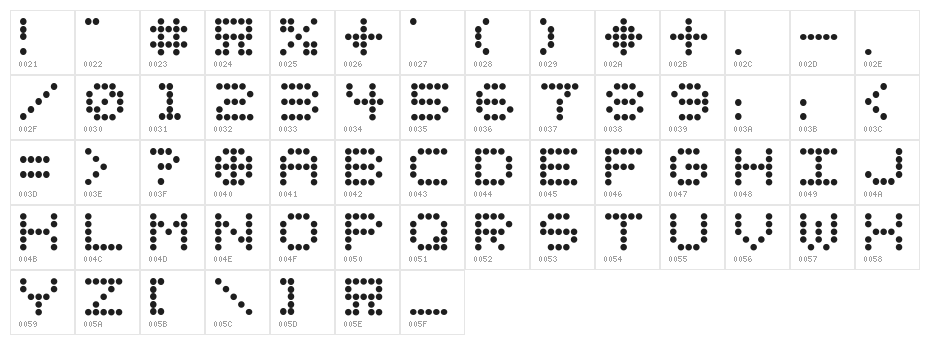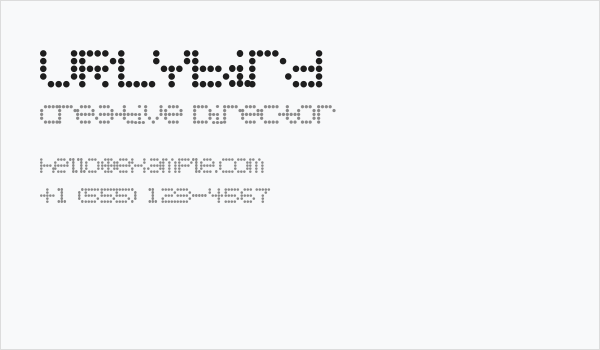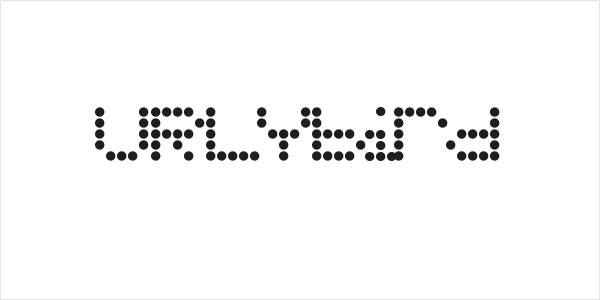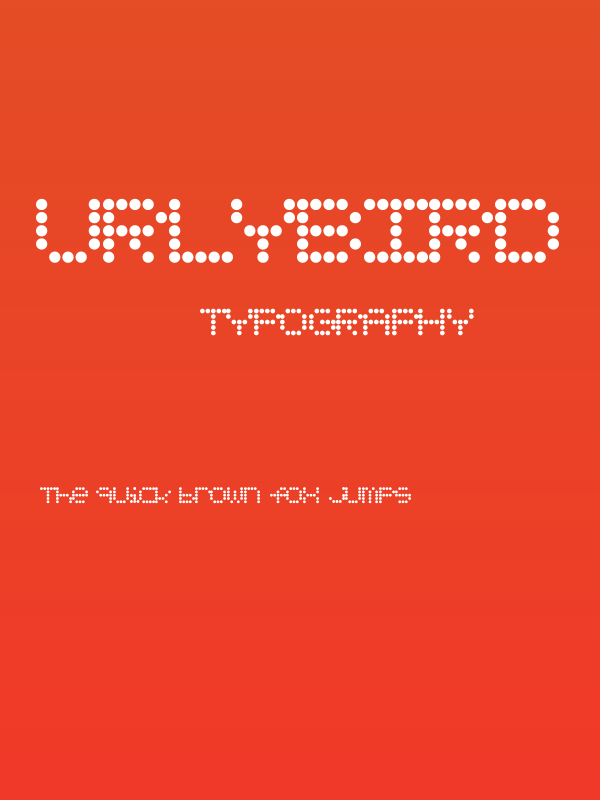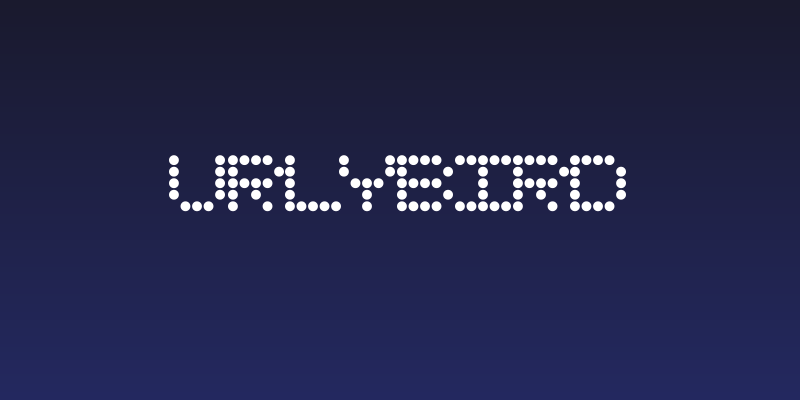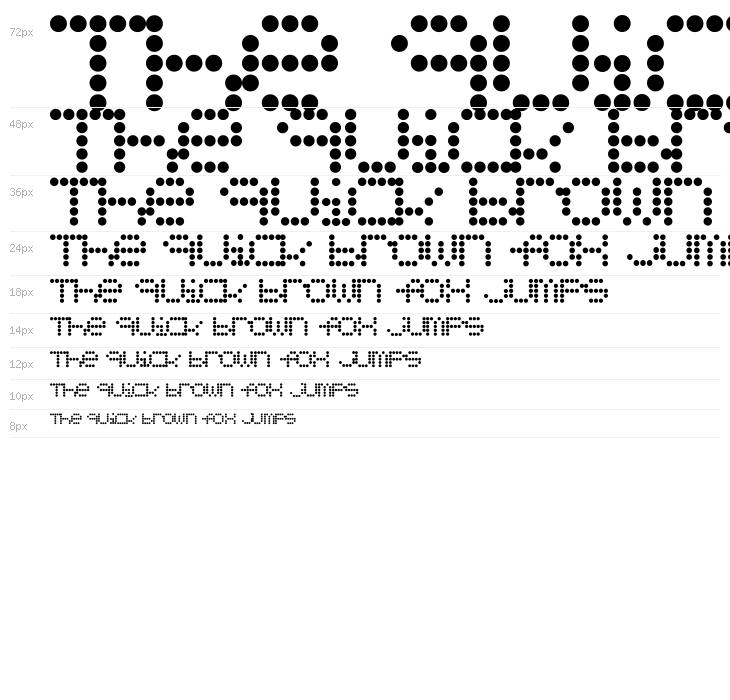
URLYbird Font
URLYbird Description
This font is a unique and creative design composed entirely of dots arranged to form each character. The dots are evenly spaced, creating a uniform and consistent appearance across all letters and numbers. This style gives the font a modern and digital feel, reminiscent of LED displays or pixel art. The characters are easily recognizable despite the unconventional design, maintaining clarity and readability. The font includes both uppercase and lowercase letters, numbers, and a selection of special characters, making it versatile for various uses.
| Use Case | Logos, Headlines, Digital Art |
| Proposed Projects | Ideal for digital displays, tech-themed designs, modern art projects, and creative branding. |